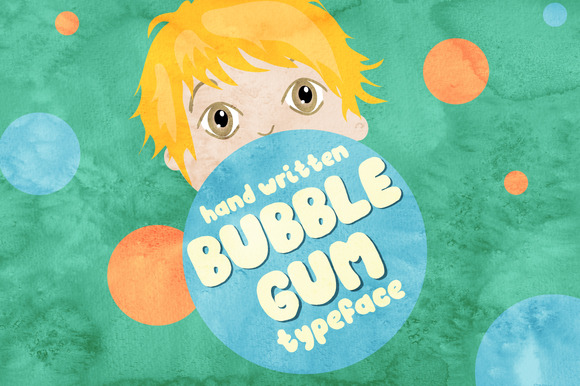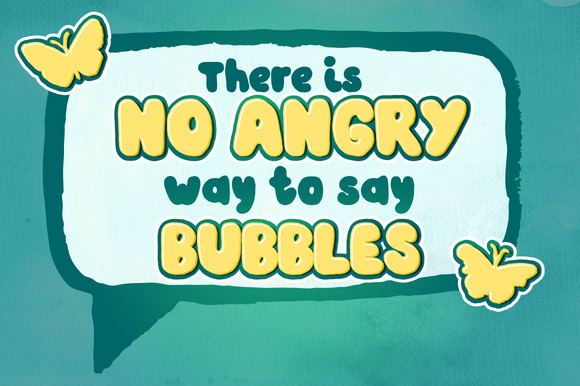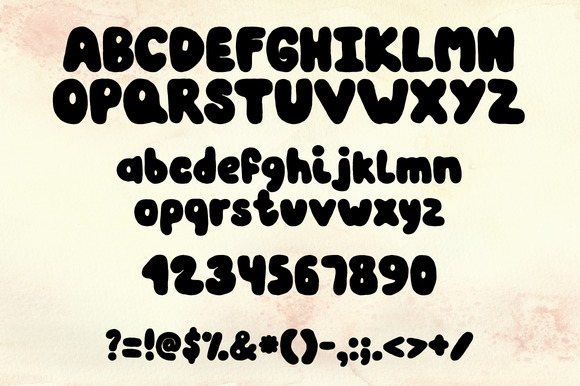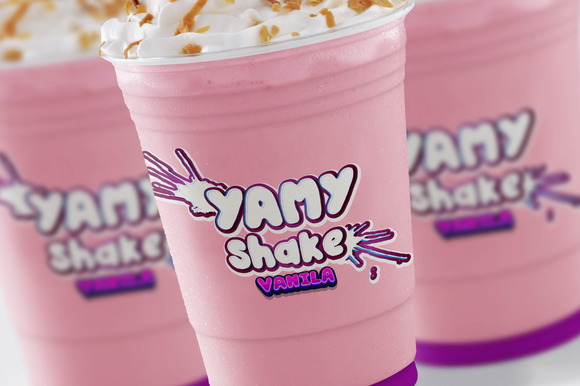
Bubble Gum – Hand Written Font
It is time for new and fun hand written font 🙂 Bubble gum was inspired by my little son and his love to bubble gums! So here it is – a new, fun, childish hand drawn font. Use it on posters, flyers, insert into illustrations, logo designs .